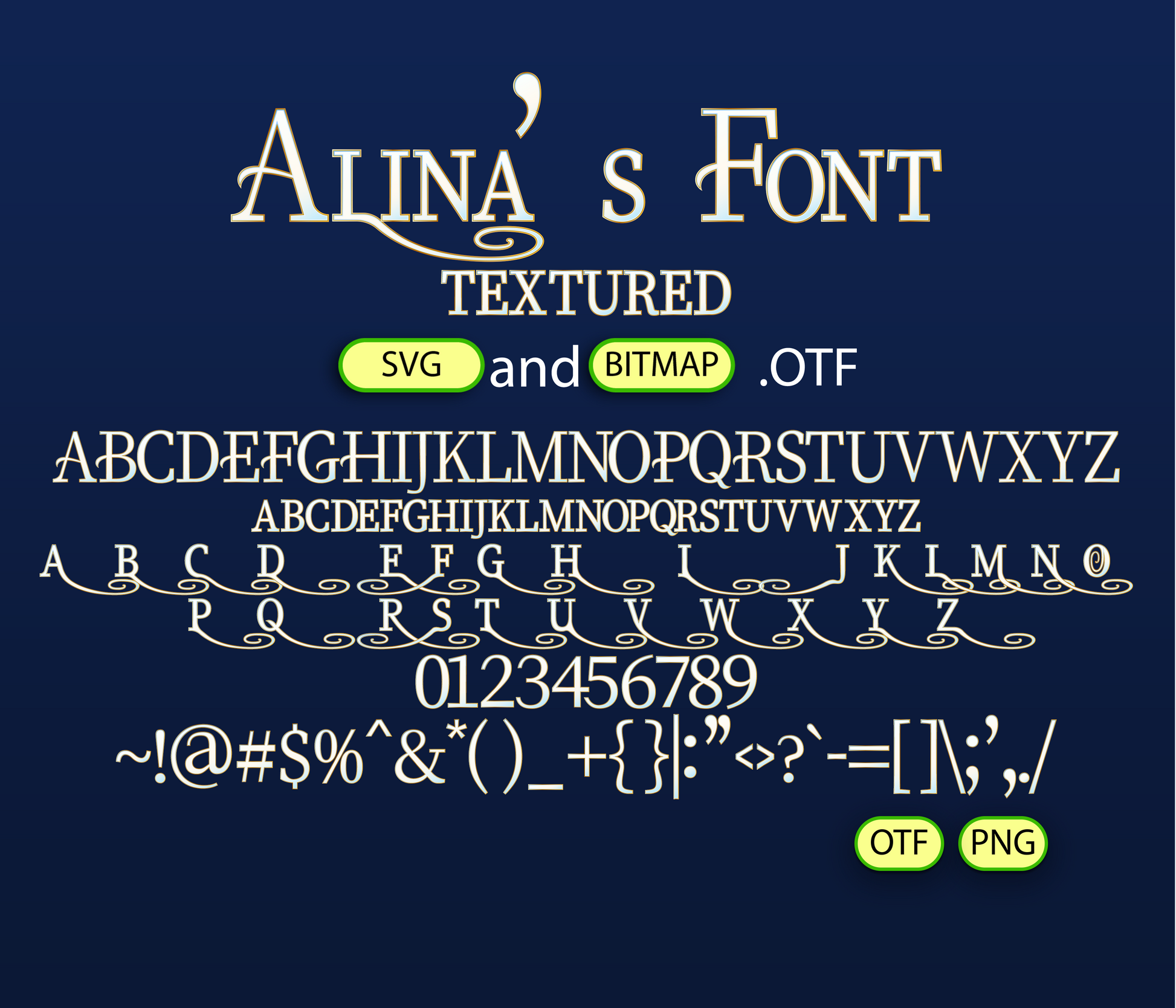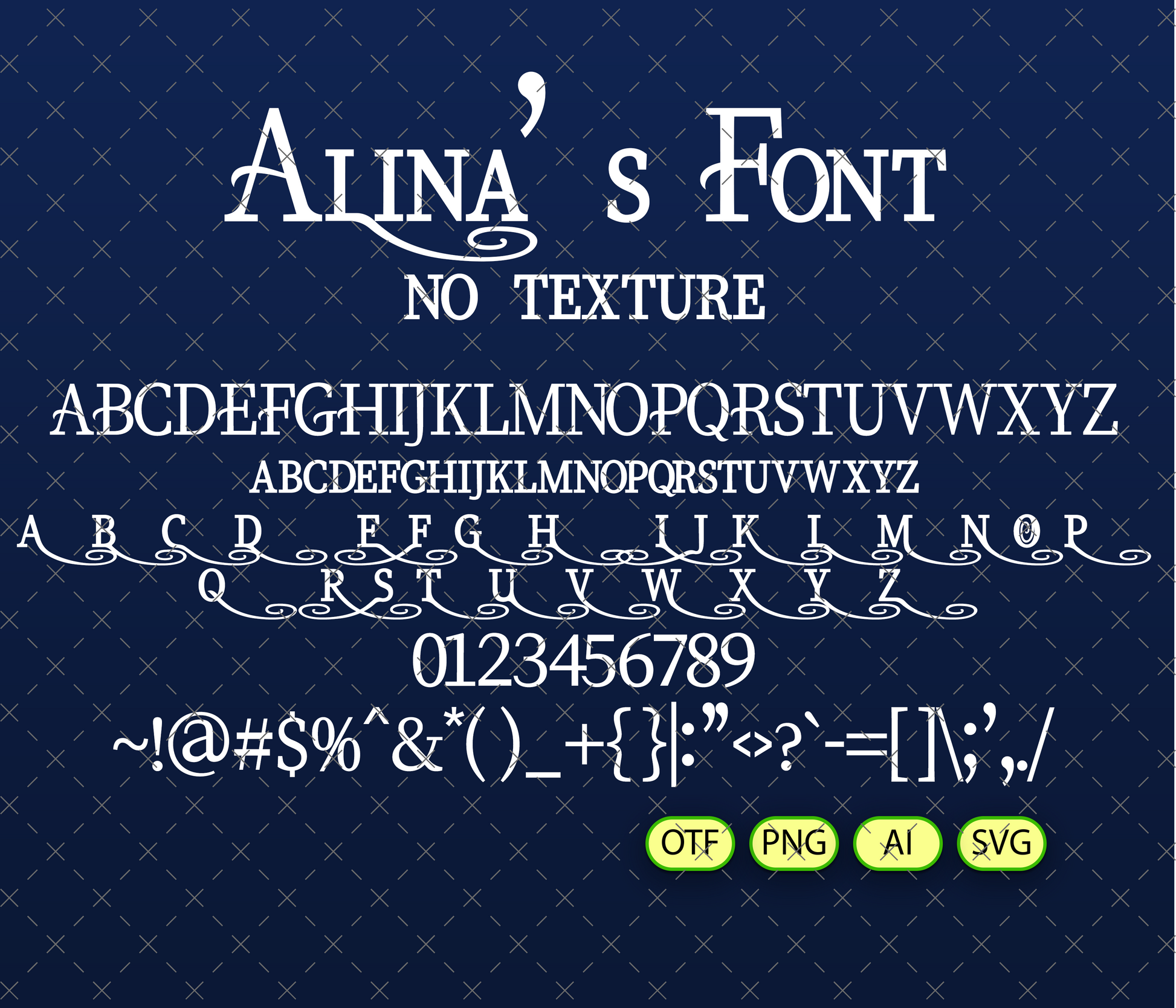
Parisian Feline Font Textured
Step into the elegant world of sophisticated cats with our Parisian Feline Font Textured, capturing the essence of jazz-age charm and French aristocratic style. Perfect for vintage animation fans, themed event planners, content creators, and creative professionals, this font brings the bold, refined spirit of musical cat adventure stories to your projects. Create eye-catching invitations, merchandise, or digital content with the dramatic energy of elegant feline narratives.
Bold Typography for Classic Design & Vintage Projects
Our Parisian Feline Font Textured features dramatic, stylized letterforms with ornate textures reflecting the world of sophisticated cat characters and belle époque settings.
Our font pays tribute to the world of musical cat stories and classic animation, empowering your projects with its bold and refined spirit. Whether crafting fan materials, designing themed products, or adding an elegant touch to personal projects, this font communicates the vibrant essence of sophisticated entertainment. Ready to inject Parisian charm into your creations? This font is your key to eye-catching, impactful design.